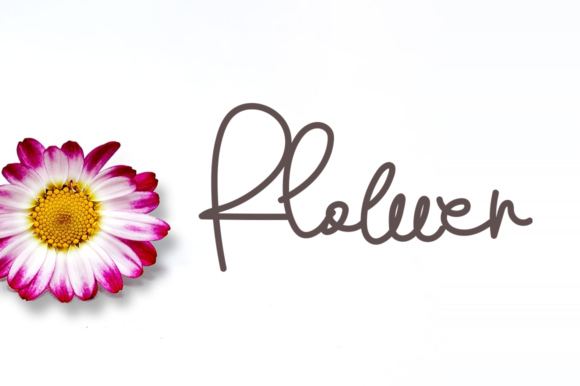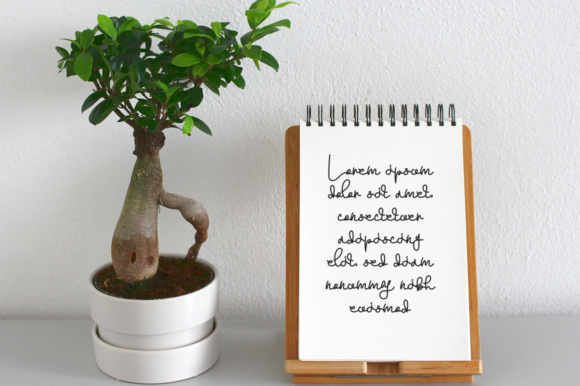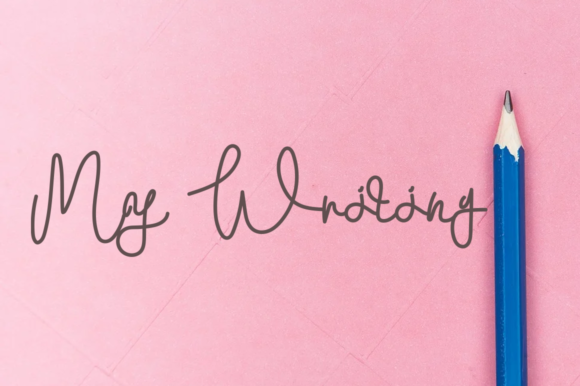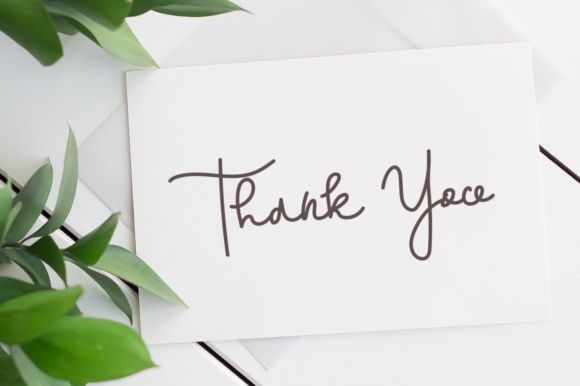
Abashed Font
About Abashed Font
Abashed is a dainty, thin and fashionable handwritten font. This gentle font will look gorgeous on a variety of design ideas. It will add a joyful and romantic touch to each of your projects!